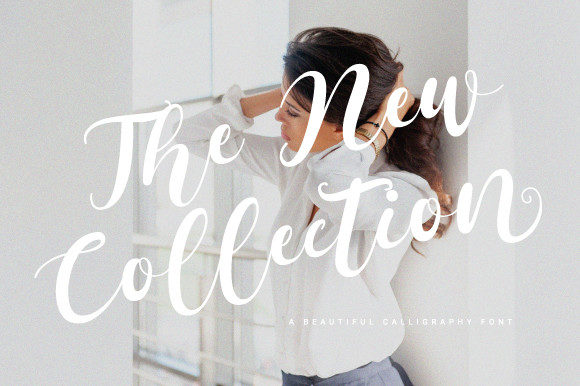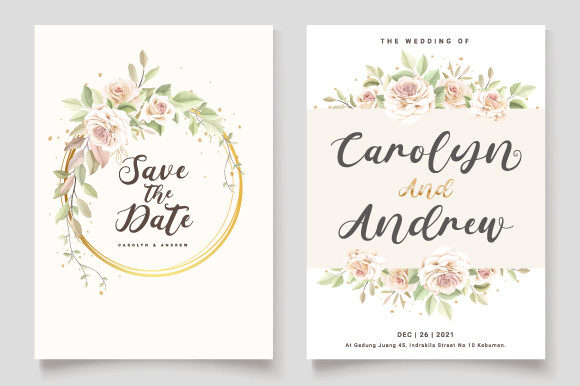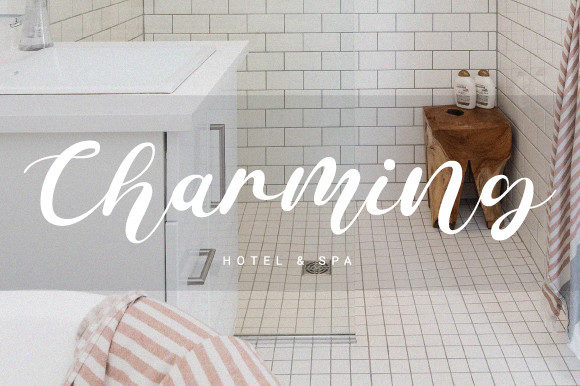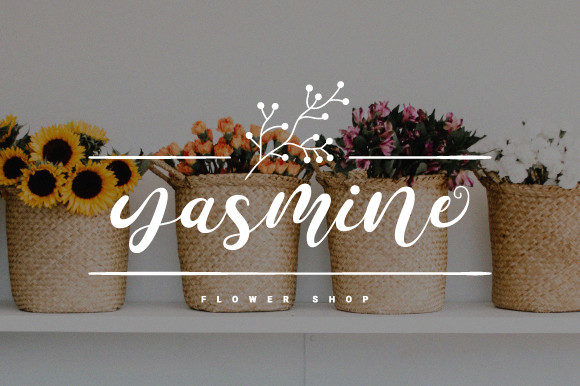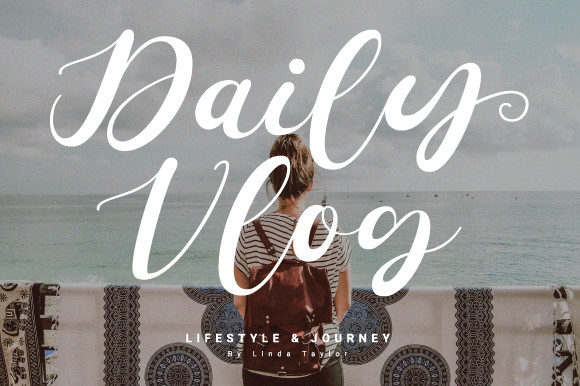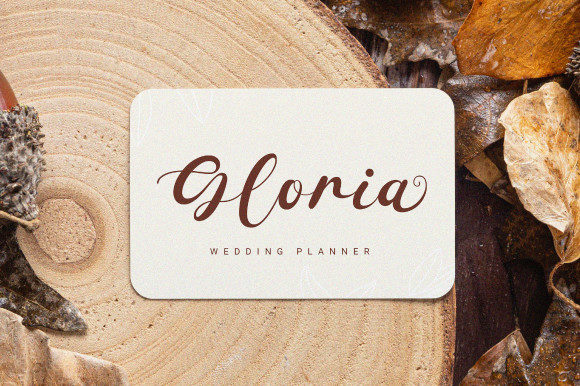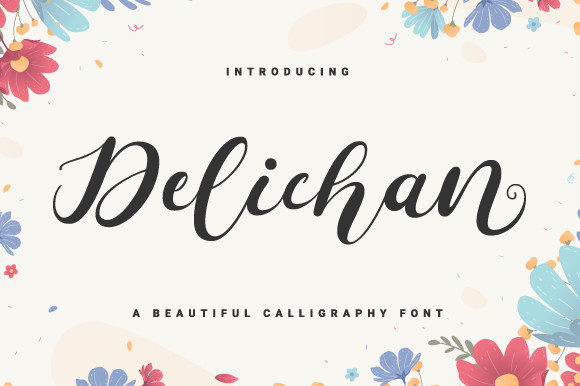
Discover the Charming Delichan Font: Elevate Your Design Projects with Elegance
In the world of typography, a font can make or break a design project. It’s the perfect blend of style, elegance, and charm that can transform a simple design into a masterpiece. If you’re on the hunt for a script font that exudes appeal and sophistication, look no further than the Delichan Font. This beautiful script font is designed to add a charming vibe to any design project you wish to create, making it a must-have for designers and crafters alike.
The Allure of Delichan Font
Delichan Font is an appealing script font that boasts a unique and elegant style, perfect for a wide range of design projects. Whether you’re working on a branding project, a wedding invitation, a packaging design, or a digital project, Delichan Font is sure to make your design stand out from the crowd. Its charming and sophisticated vibe can instantly elevate your design, making it more visually appealing and engaging.
One of the standout features of Delichan Font is its PUA (Private Use Area) encoding. This means that you can access all glyphs and swashes with ease, giving you greater flexibility and creative control over your design. With PUA encoding, you can effortlessly navigate through the font’s extensive character set, including alternates, ligatures, and swashes, to create stunning text designs that are truly one-of-a-kind.
Delichan Font is a versatile script font that’s perfect for designers and crafters who want to add a touch of elegance and sophistication to their projects. Whether you’re a professional designer or a DIY crafter, this font is easy to use and can be incorporated into a wide range of design projects, including:
- Branding and logo design
- Packaging design and product labels
- Digital projects, such as social media graphics and blog headers
- Paper crafts, such as card making and scrapbooking
Why Choose Delichan Font?
With so many script fonts available, why choose Delichan Font? Here are just a few reasons why this font stands out from the rest:
- Unique and elegant style: Delichan Font boasts a distinctive and sophisticated style that’s sure to make your design stand out.
- PUA encoding: With PUA encoding, you can access all glyphs and swashes with ease, giving you greater creative control over your design.
- Versatile: Delichan Font is perfect for a wide range of design projects, from branding and packaging to digital projects and paper crafts.
Get Creative with Delichan Font